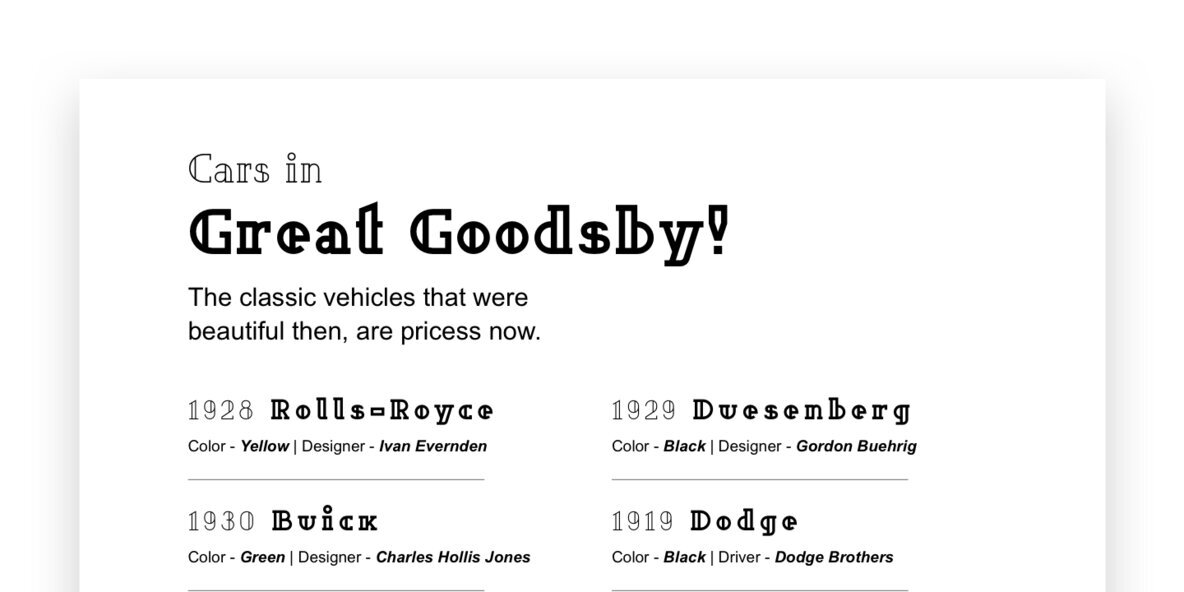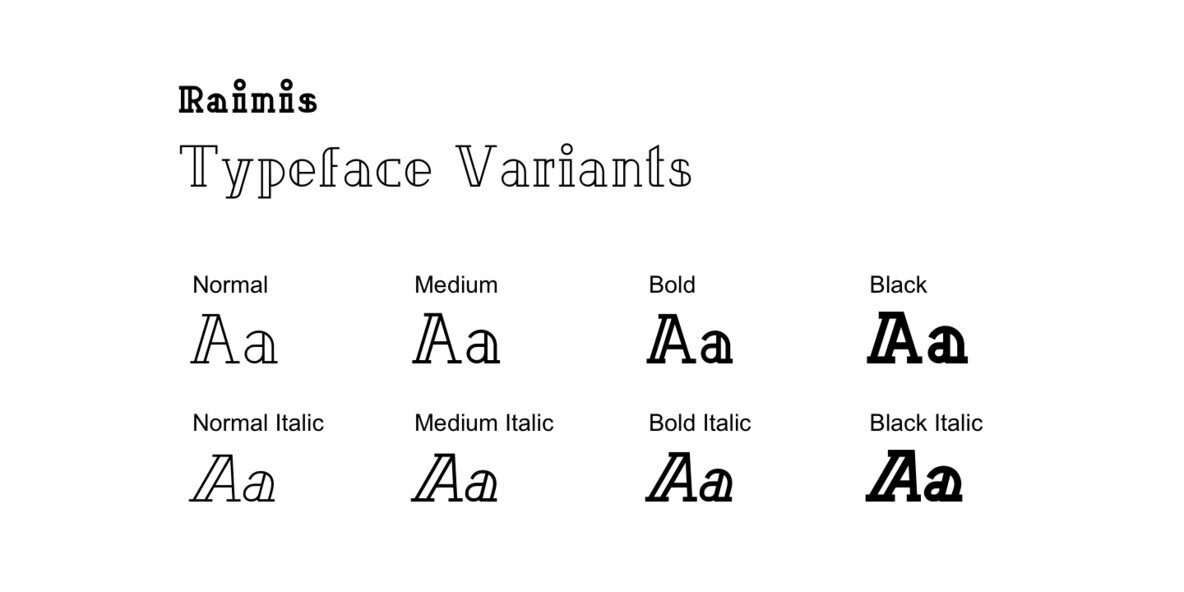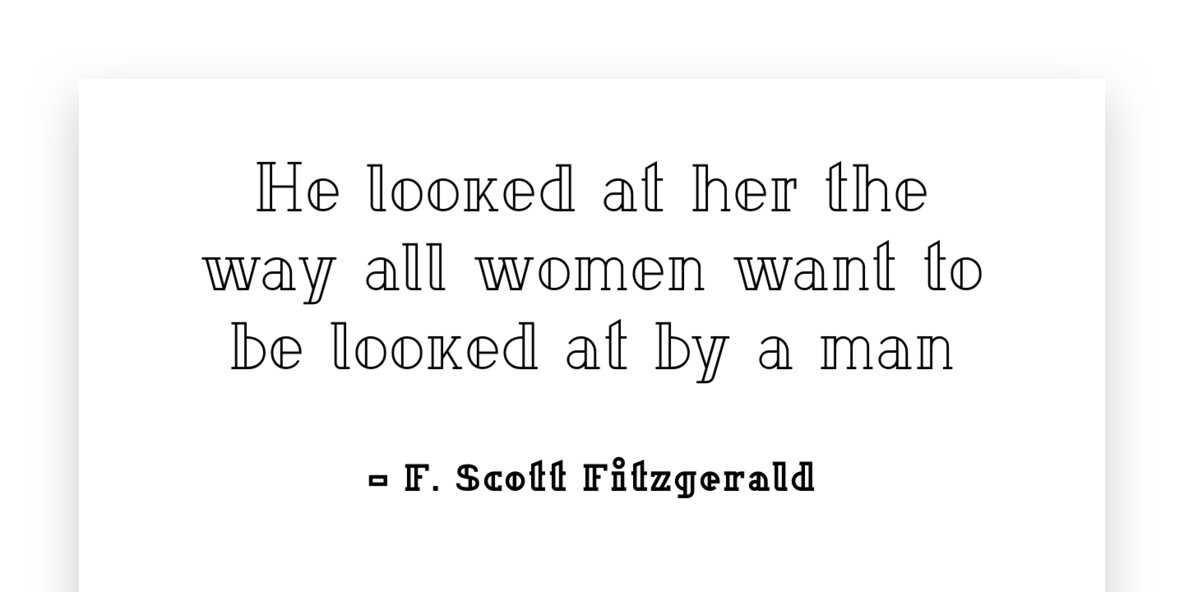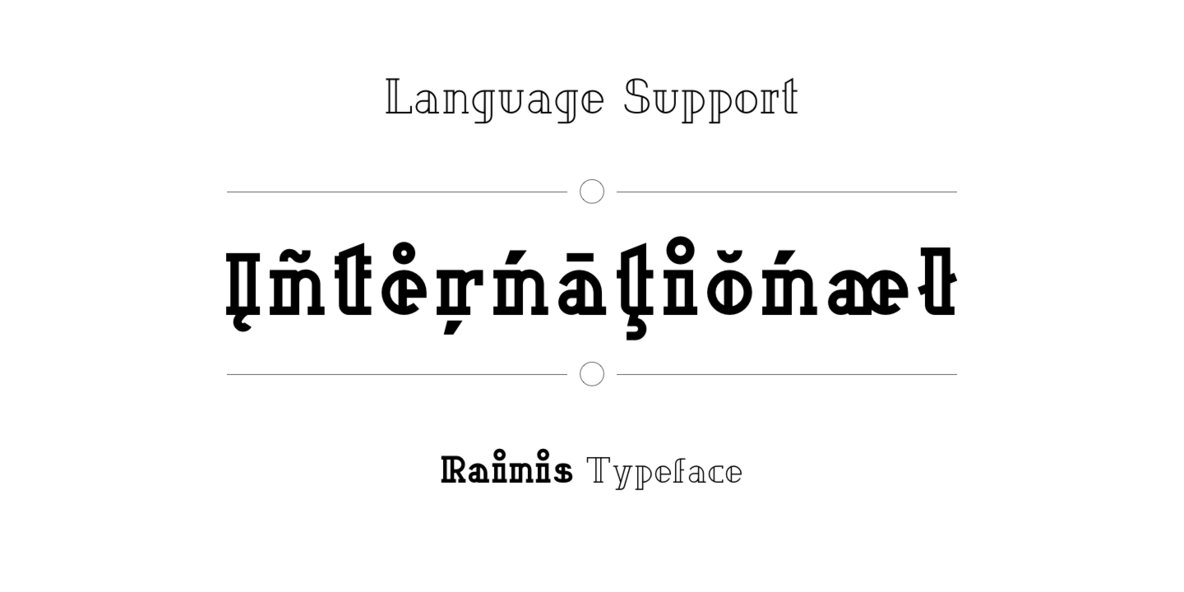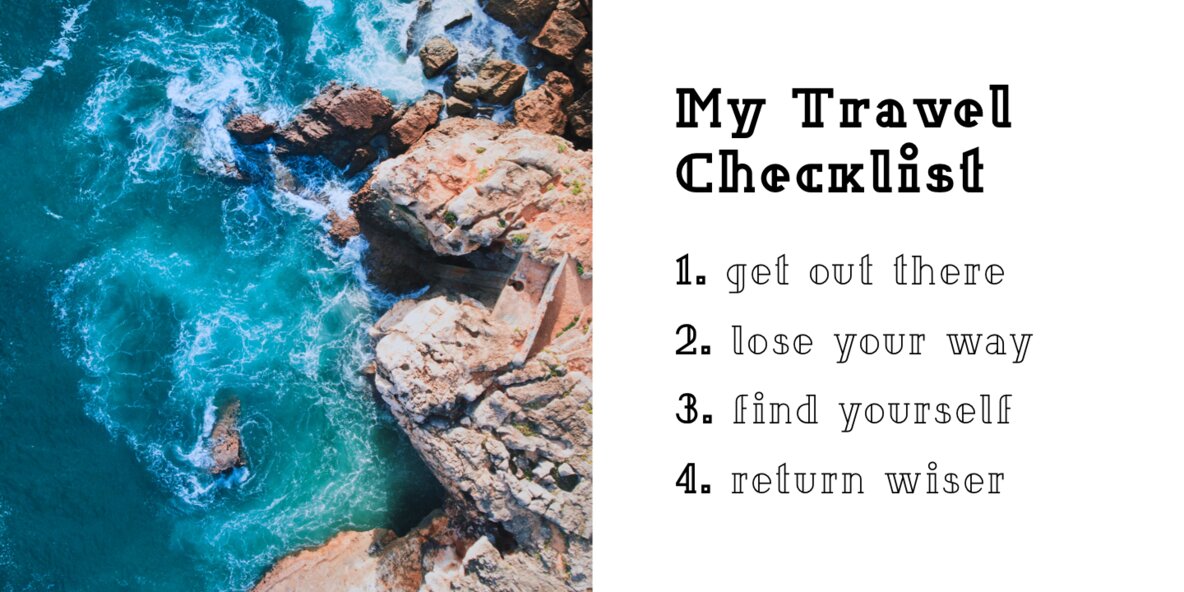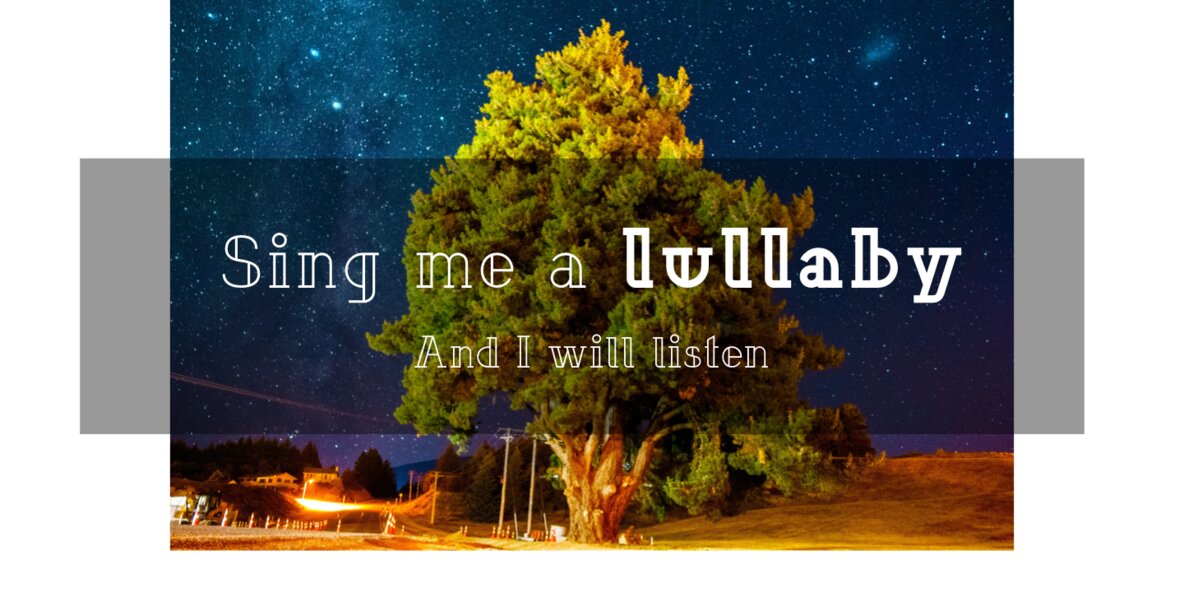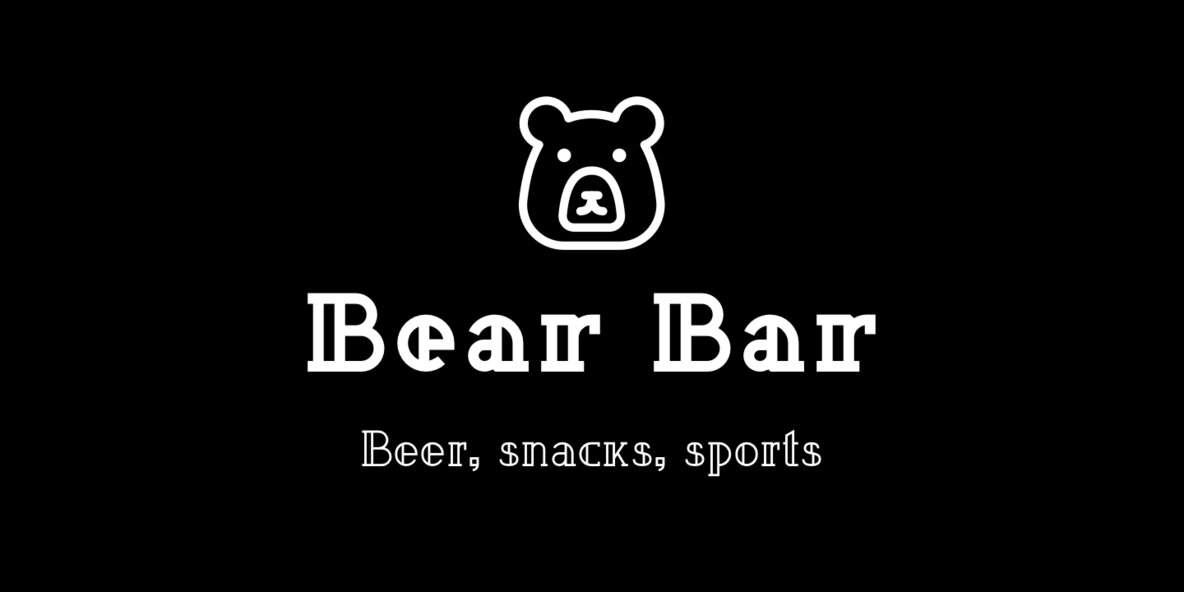
Rainis Font
Rainis is a geometric display typeface that is inspired by the art deco era of design. It has a modern feel to it and will work as a prominent accent in poster, web, branding, illustration or any other design. It works beautifully in a combination with geometric sans serif fonts.